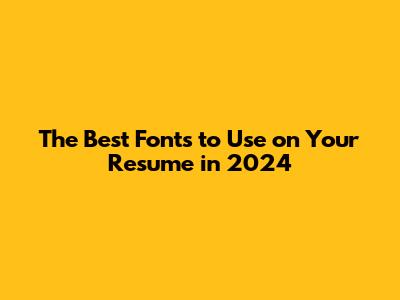
- Times New Roman: A classic for a reason! It's super readable and widely recognized. If you're applying for a job in a traditional industry, Times New Roman can be a safe and reliable choice. It's a font that has stood the test of time and continues to be a popular option for professional documents. However, some might argue that it's a bit overused, so consider whether it aligns with the image you want to project.
- Garamond: This font is a bit more stylish than Times New Roman. It's still easy to read but has a slightly more sophisticated look. Garamond is an excellent choice if you want to convey a sense of elegance and refinement. It's particularly well-suited for industries where attention to detail and aesthetics are valued. The font's unique character can help your resume stand out while maintaining a professional appearance.
- Didot: For a more modern take on a serif, Didot is a great option. It has a high contrast between thick and thin lines, giving it a chic and contemporary feel. Didot can add a touch of sophistication to your resume and is perfect for industries that value style and innovation. However, it's essential to use it sparingly and ensure it remains legible, as its distinct style might not be suitable for all contexts.
- Arial: Another super common font, Arial is clean and readable. It's a safe bet if you want something straightforward and easy to process. Arial is a versatile font that works well in various industries and is known for its clarity and legibility. However, like Times New Roman, it's a popular choice, so consider whether it aligns with your desired image.
- Calibri: This has become a go-to for many. It’s clean, modern, and very readable on screen. Calibri is a great option if you want to project a contemporary and professional image. Its rounded edges and balanced proportions make it easy on the eyes, ensuring that recruiters can quickly scan your resume and grasp your qualifications.
- Helvetica: A widely respected font, Helvetica is known for its simplicity and clarity. It's a great choice if you want your resume to look clean and modern. Helvetica is often used in design and corporate settings, making it a suitable option for a wide range of industries. Its neutral and straightforward appearance ensures that your content takes center stage.
- Verdana: Designed for on-screen readability, Verdana is excellent if your resume will be viewed primarily on computers. It has wider letter spacing, making it easy to read, even at smaller sizes. Verdana is particularly useful if you're concerned about accessibility, as its design makes it easier for people with visual impairments to read.
- Lato: Lato is a sans-serif font that combines readability with a touch of elegance. Its semi-rounded details give it a warm and friendly feel, making it a great choice if you want to come across as approachable and professional. Lato is versatile and works well in various industries, offering a balance between modernity and sophistication.
- Margins: Keep your margins between 0.5 and 1 inch. This gives your resume a clean, uncluttered look. Adequate margins provide white space around your text, making it easier on the eyes and preventing your resume from looking cramped.
- Line Spacing: Use single or 1.15 line spacing. This makes your resume easier to read and prevents it from looking too dense. Appropriate line spacing helps to separate the lines of text, improving readability and allowing recruiters to quickly scan the content.
- Bold and Italics: Use bold and italics sparingly to highlight key information. Overusing these formatting options can make your resume look cluttered and unprofessional. Use them strategically to draw attention to important details, such as job titles, dates, and key skills.
- Comic Sans: Unless you're applying for a job as a clown, avoid this one at all costs! It's widely considered unprofessional and childish. Comic Sans is often associated with informal or playful contexts, making it unsuitable for professional documents like resumes.
- Papyrus: This font is overused and often seen as tacky. It's best to avoid it to maintain a professional image. Papyrus has a distinct and somewhat exotic look, which can be distracting and detract from the overall professionalism of your resume.
- Any overly decorative or script fonts: These can be hard to read and look unprofessional. Stick to clean, simple fonts that are easy on the eyes. Decorative fonts are often difficult to decipher and can make your resume look cluttered and unprofessional.
Choosing the right font for your resume is super important, guys! It's not just about making it look pretty; it's about making sure it's easy to read and professional. Your resume is often the first impression you make on a potential employer, so you want to make it count. Think of your resume as your personal marketing document. You want to showcase your skills and experience in the best light possible, and the font you choose plays a significant role in that. A good font can make your resume look clean, modern, and professional, while a bad font can make it look outdated, cluttered, and difficult to read. In this article, we'll dive into the best fonts you can use to make your resume stand out for all the right reasons.